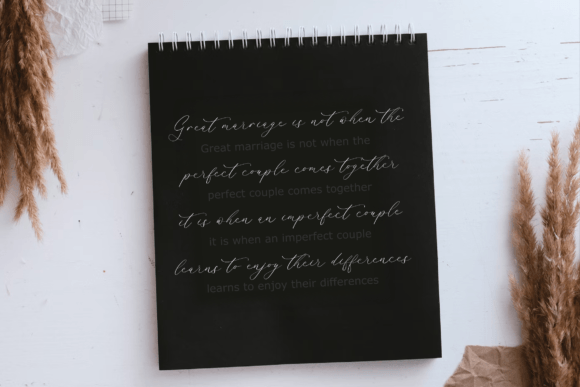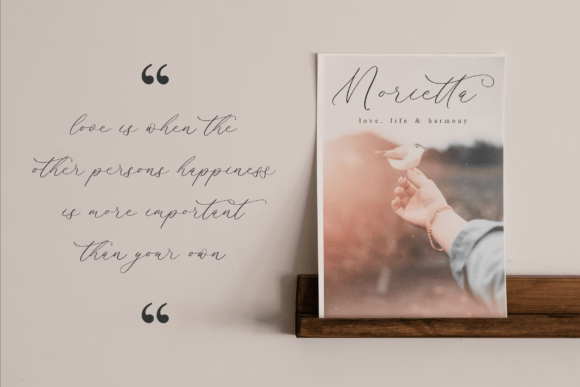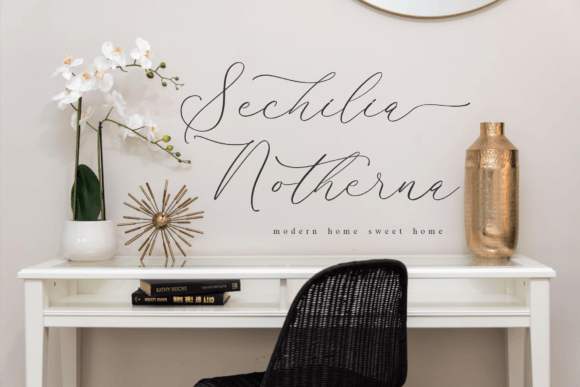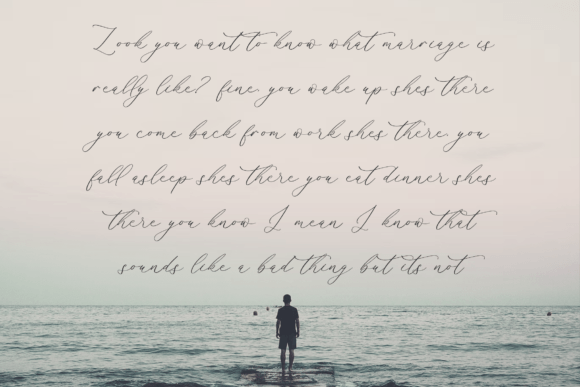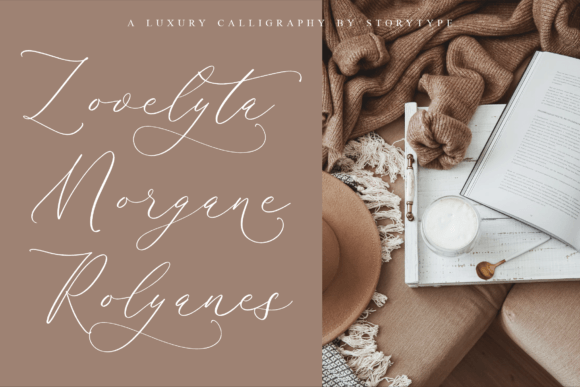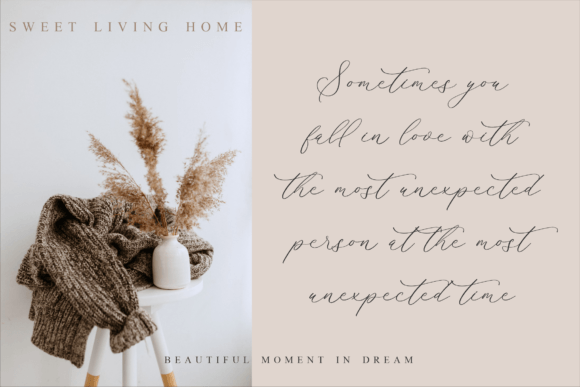
Introducing Harlyetta Mordila Font: A Delicate and Elegant Handwritten Font
Are you a designer or crafter looking for a font that exudes elegance and sophistication? Look no further than Harlyetta Mordila Font. This beautiful handwritten font is perfect for a wide range of design projects, from wedding invitations and branding materials to digital products and craft projects.
What Makes Harlyetta Mordila Font So Special?
Harlyetta Mordila Font is a delicate, elegant, and flowing handwritten font that is sure to capture the attention of your audience. Its beautiful and well-balanced characters make it a versatile font that can be used in a variety of design contexts. Whether you’re looking to create a romantic and whimsical design or a more formal and professional one, Harlyetta Mordila Font is the perfect choice.
Key Features of Harlyetta Mordila Font
- Delicate and Elegant: Harlyetta Mordila Font features delicate and elegant strokes that give it a sophisticated and refined look.
- Handwritten: This font is a handwritten font, which means it has a personal and unique touch that sets it apart from more traditional fonts.
- Flowing: The flowing nature of Harlyetta Mordila Font makes it perfect for designs that require a sense of movement and fluidity.
- Well-Balanced Characters: The characters in Harlyetta Mordila Font are well-balanced and proportionate, making it easy to read and understand.
Why Harlyetta Mordila Font is Perfect for Designers and Crafters
Harlyetta Mordila Font is a perfect choice for designers and crafters who want to add a touch of elegance and sophistication to their designs. Its versatility and flexibility make it suitable for a wide range of design projects, including:
- Wedding Invitations: Harlyetta Mordila Font is perfect for wedding invitations, ceremony programs, and other wedding-related designs.
- Branding Materials: This font can be used to create beautiful and elegant branding materials, such as logos, business cards, and letterheads.
- Digital Products: Harlyetta Mordila Font can be used to create stunning digital products, such as ebooks, workbooks, and printables.
- Craft Projects: This font is also perfect for craft projects, such as handmade cards, scrapbooking, and journaling.
Tips for Using Harlyetta Mordila Font
Here are some tips for using Harlyetta Mordila Font in your designs:
- Pair it with Other Fonts: Harlyetta Mordila Font can be paired with other fonts to create a unique and interesting design.
- Experiment with Colors: This font looks great in a variety of colors, so don’t be afraid to experiment and find the perfect color scheme for your design.
- Use it for Headings and Titles: Harlyetta Mordila Font is perfect for headings and titles, as it adds a touch of elegance and sophistication to your design.
In conclusion, Harlyetta Mordila Font is a beautiful and elegant handwritten font that is perfect for designers and crafters who want to add a touch of sophistication to their designs. Its delicate and flowing strokes, well-balanced characters, and versatility make it a great choice for a wide range of design projects. Whether you’re looking to create a romantic and whimsical design or a more formal and professional one, Harlyetta Mordila Font is the perfect choice.